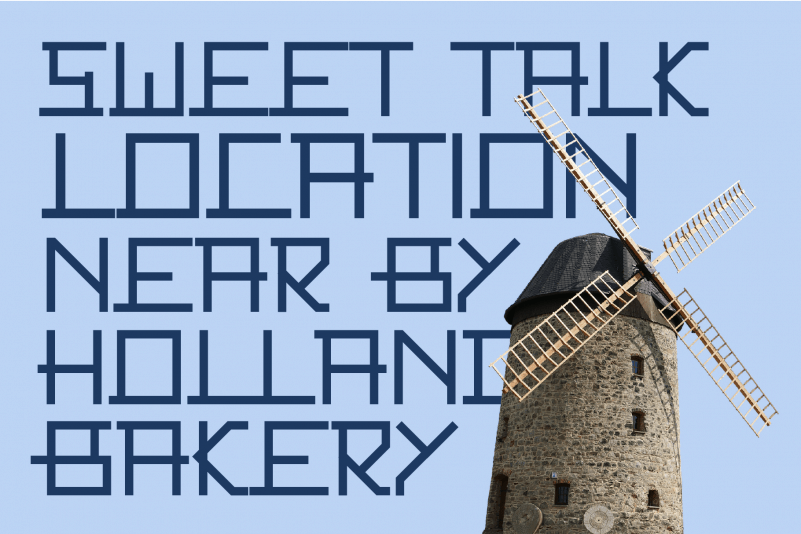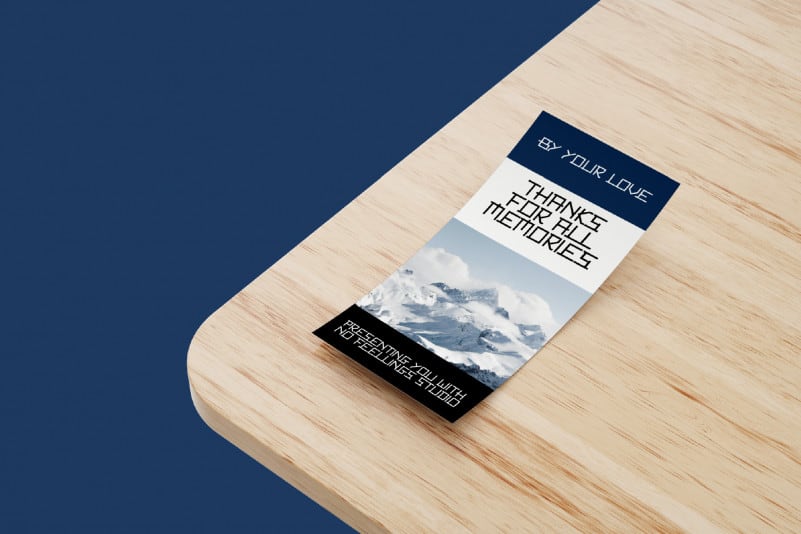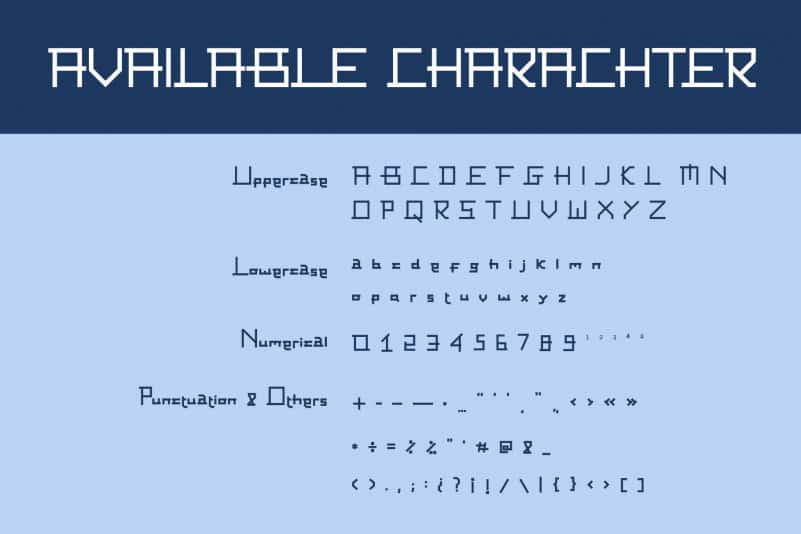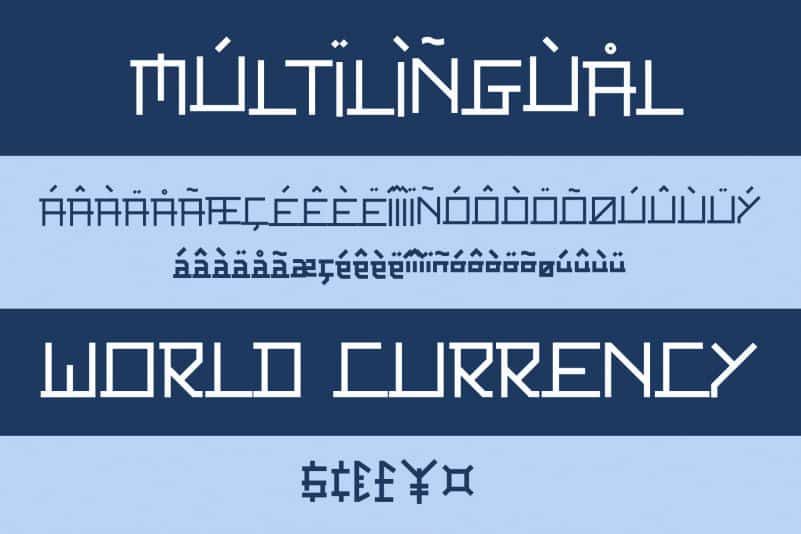
Fahreza Display Font
Fahreza Display Font is a combination of futuristic and pixelated display font. Fahreza Font is suitable for variety of branding projects, logos, creative designs, social media posts, advertisements, and so much more. Be creative with Fahreza!